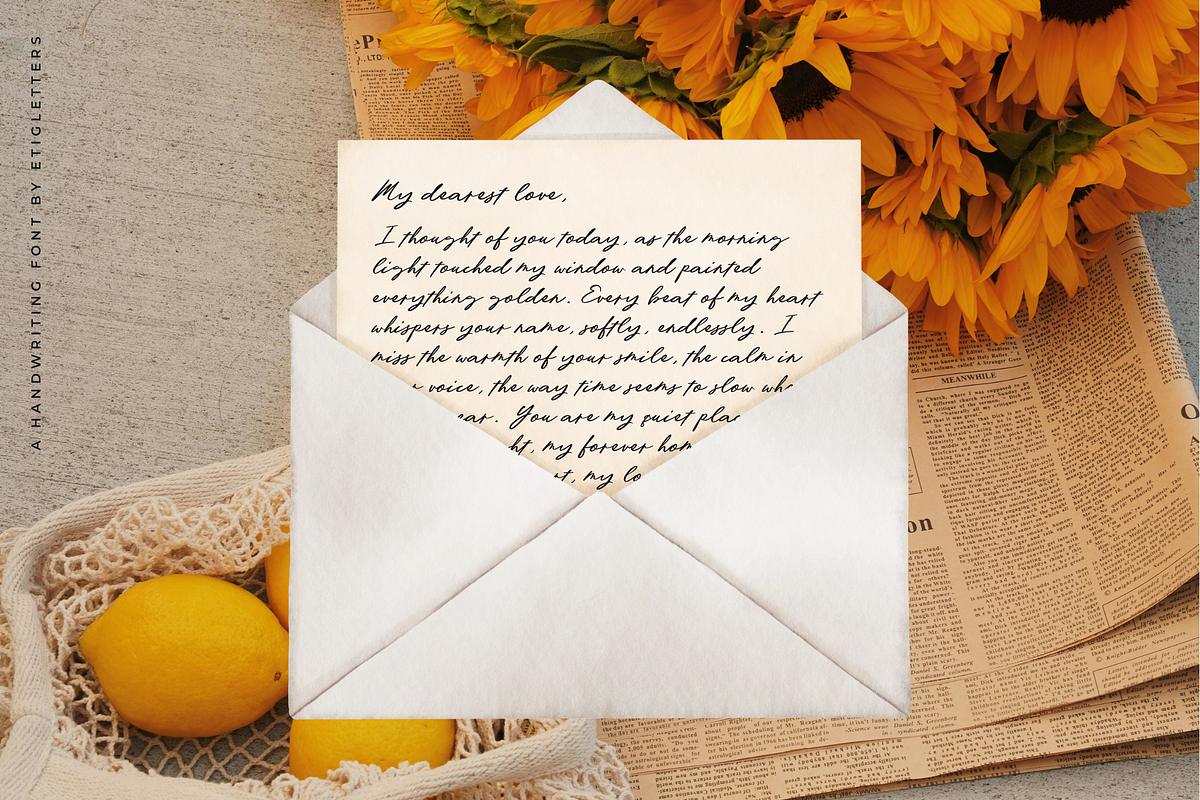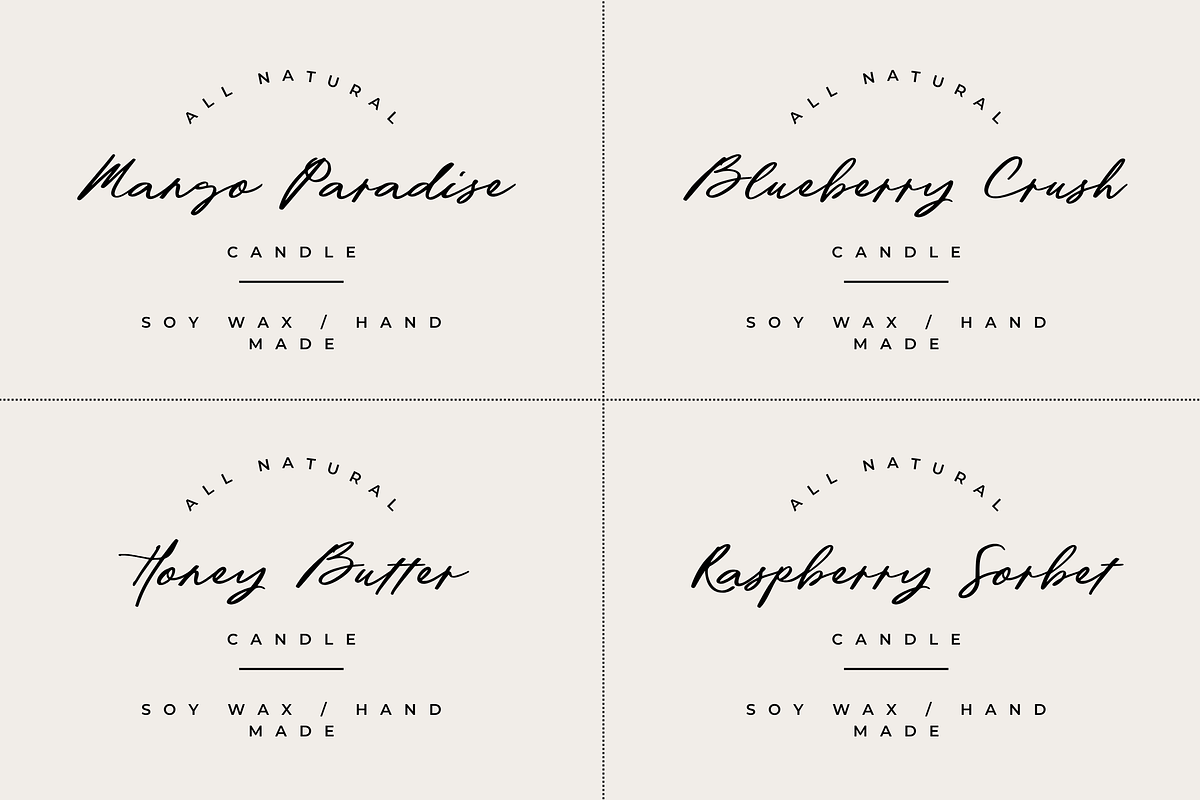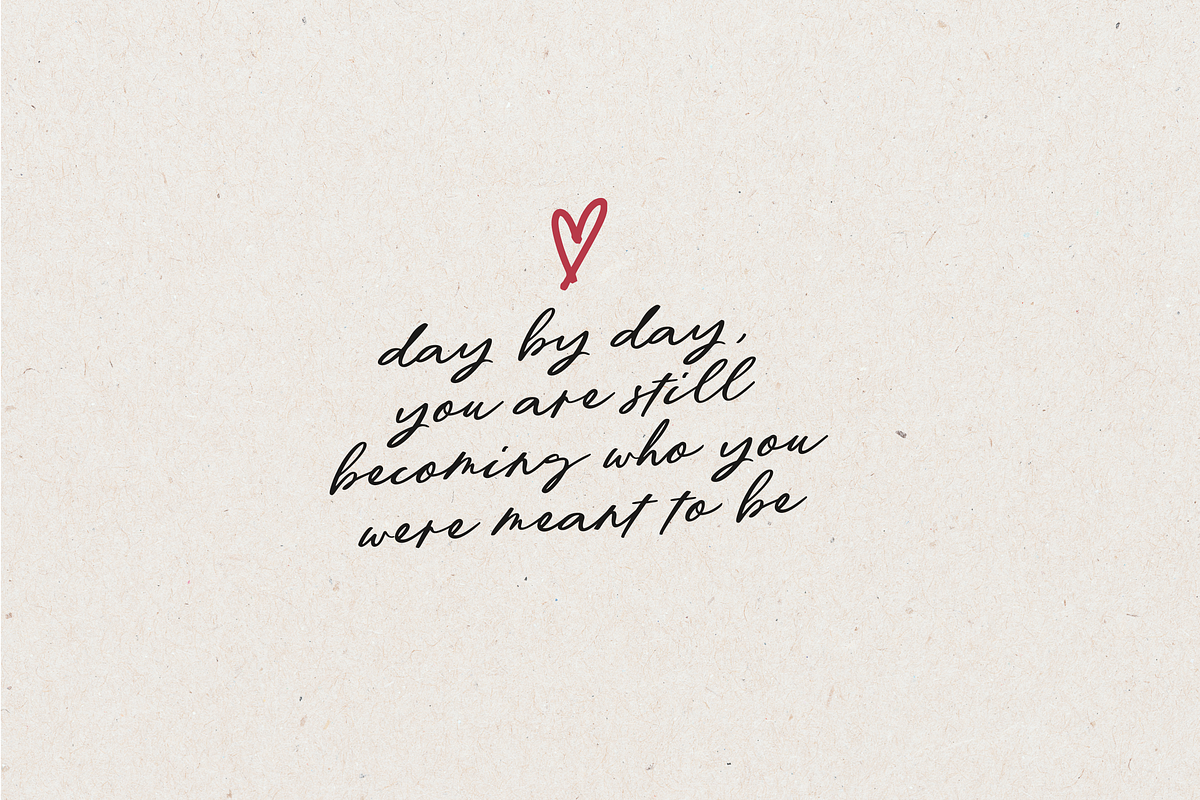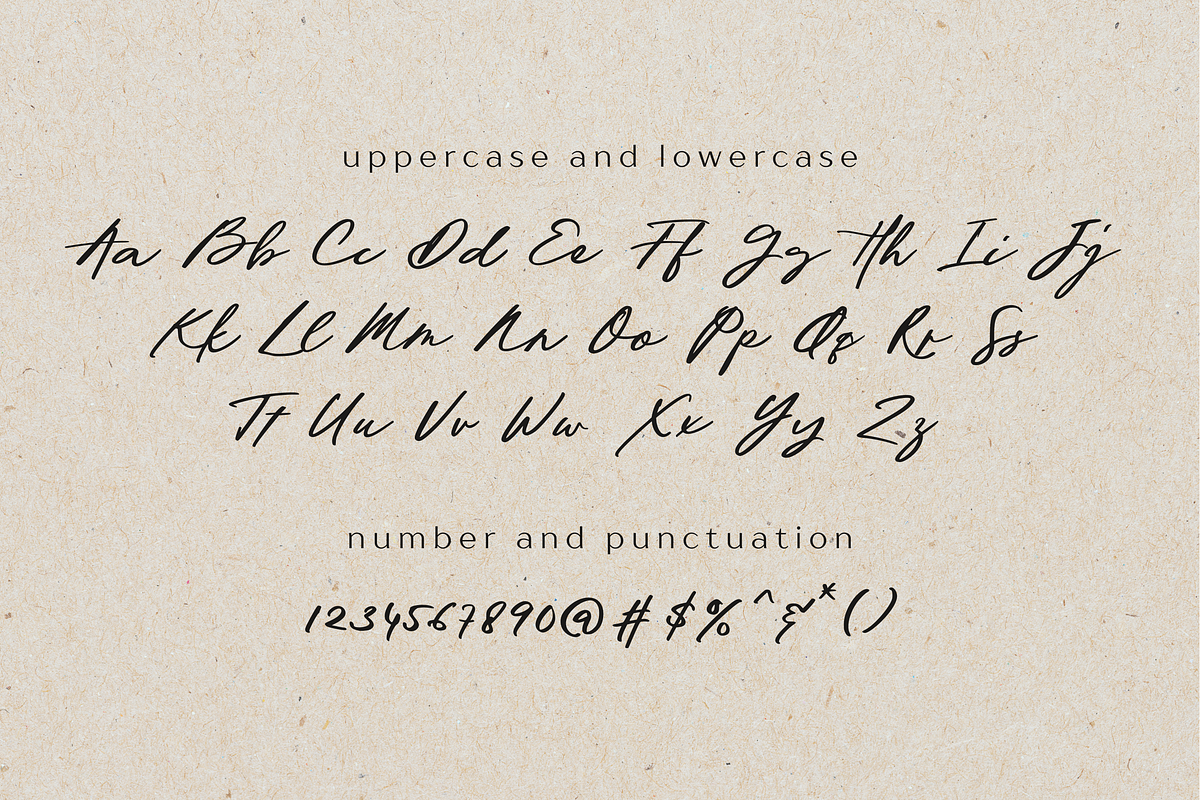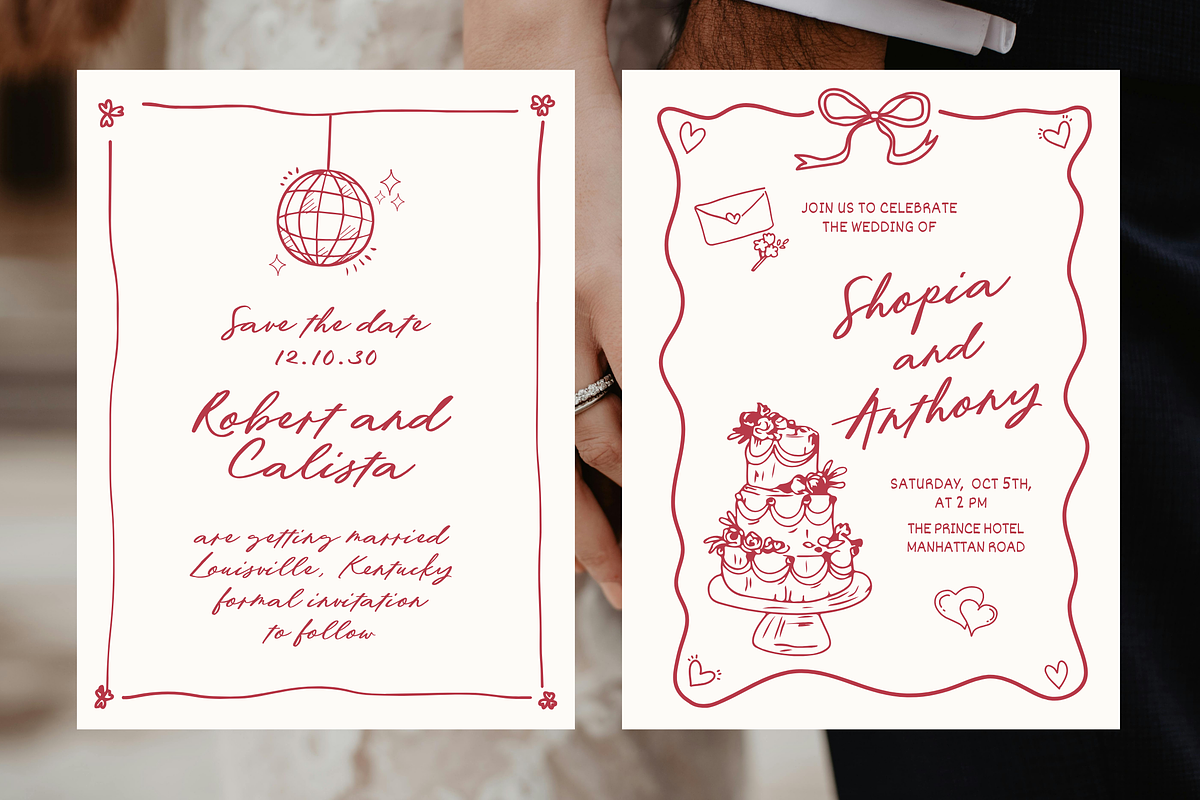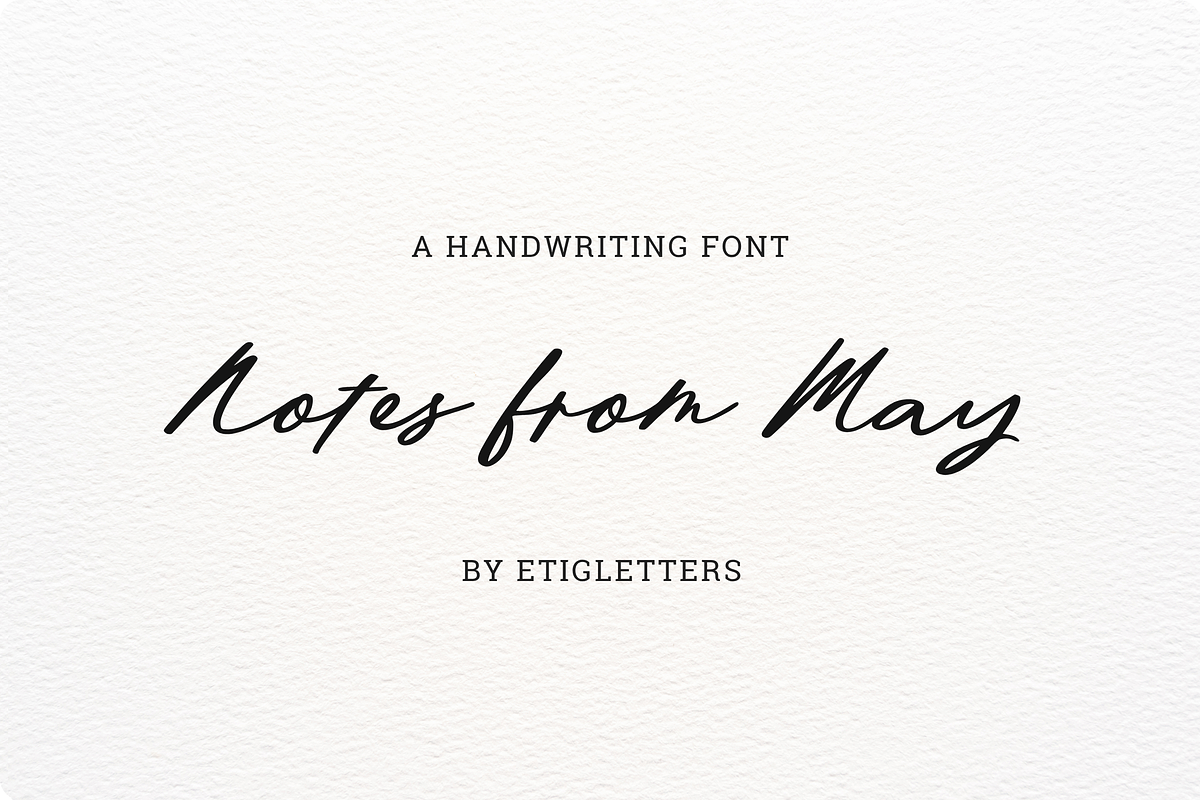
Notes from May Handwritten Font
Introducing, Notes from May - a beautiful handwritten font. It can be used for various types of design needs such as wedding invitation, craft stuff, branding materials, promotional flyers, social media templates, t-shirt, and more.
This font also suitable to be combined with sans serif that will make your design more perfect. Also already PUA Encoded!